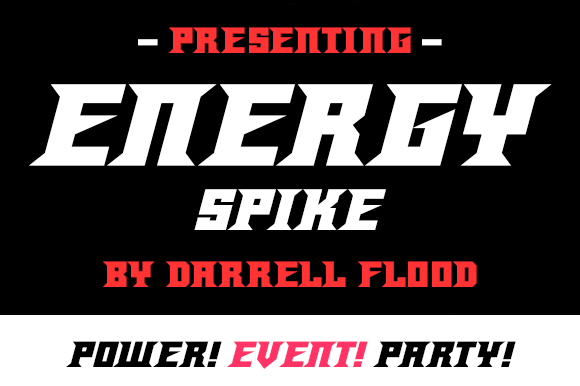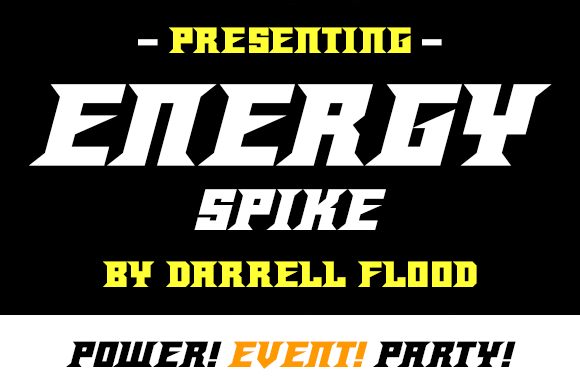
Unleash the Power: Introducing the Energy Spike Font
In the world of design, fonts play a crucial role in conveying the tone and personality of a brand or project. When it comes to making a bold statement, few fonts can match the energy and dynamism of the Energy Spike Font. This sharp, energetic font is designed in an expressive, futuristic style, making it perfect for action-packed adventures, tech features, energy drinks, and any project that requires a powerful image.
What is the Energy Spike Font?
The Energy Spike Font is a modern, sans-serif font that exudes a sense of power and dynamism. Its unique design features sharp, angular lines and a bold, futuristic aesthetic that is sure to grab attention. The font is designed to be highly versatile, making it suitable for a wide range of applications, from digital media to print materials.
Key Features of the Energy Spike Font
- Expressive and Futuristic Design: The Energy Spike Font boasts a unique, futuristic design that is sure to make your project stand out. Its sharp, angular lines and bold aesthetic give it a dynamic, high-energy feel.
- Highly Versatile: Whether you’re working on a digital project, such as a website or social media graphic, or a print project, like a brochure or poster, the Energy Spike Font is the perfect choice.
- Perfect for Action-Packed Projects: The Energy Spike Font is designed to convey a sense of energy and dynamism, making it perfect for action-packed projects, such as sports branding, adventure movies, or energy drink packaging.
- Easy to Read: Despite its bold, futuristic design, the Energy Spike Font is highly legible, making it easy to read in a variety of contexts.
Use Cases for the Energy Spike Font
The Energy Spike Font is a highly versatile font that can be used in a wide range of applications. Here are some examples of use cases where the font excels:
- Action Adventures: The Energy Spike Font is perfect for action-packed adventures, such as movie posters, video game titles, or sports branding.
- Tech Features: The font’s futuristic design makes it a great fit for tech features, such as gadget reviews, tech news articles, or software packaging.
- Energy Drinks: The Energy Spike Font’s bold, dynamic design makes it a natural fit for energy drink packaging, advertising, or promotional materials.
- General Use: The font’s versatility makes it suitable for general use in a variety of contexts, from digital media to print materials.
Why Choose the Energy Spike Font?
With so many fonts to choose from, why should you choose the Energy Spike Font? Here are just a few reasons:
- Unique Design: The Energy Spike Font boasts a unique, futuristic design that is sure to make your project stand out.
- Highly Versatile: The font’s versatility makes it suitable for a wide range of applications, from digital media to print materials.
- Easy to Read: Despite its bold, futuristic design, the Energy Spike Font is highly legible, making it easy to read in a variety of contexts.
- Perfect for Action-Packed Projects: The font’s dynamic design makes it perfect for action-packed projects that require a bold, energetic aesthetic.
In conclusion, the Energy Spike Font is a powerful, dynamic font that is perfect for action-packed adventures, tech features, energy drinks, and general use anywhere a powerful image is required. Its unique, futuristic design and highly versatile nature make it a great addition to any designer’s toolkit. So why wait? Download the Energy Spike Font today and unleash the power of bold, energetic typography in your next project!